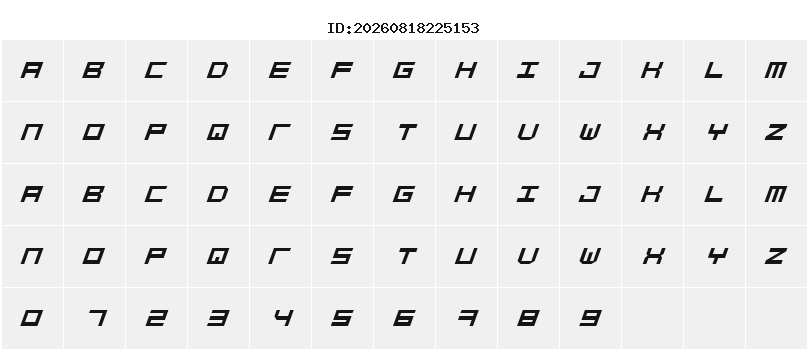
• Font Name: Simply Mono Oblique
• Full Font Name: Simply Mono Oblique
• PostScript Name: SimplyMonoOblique
• Designer: La Tipomatika
• Manufacturer: La Tipomatika
About Simply Mono Oblique.ttf
Simply Mono Oblique.ttf is a modern, elegant sans-serif font designed for ultimate readability and visual harmony. Perfect for branding, headlines, web design, and print materials.